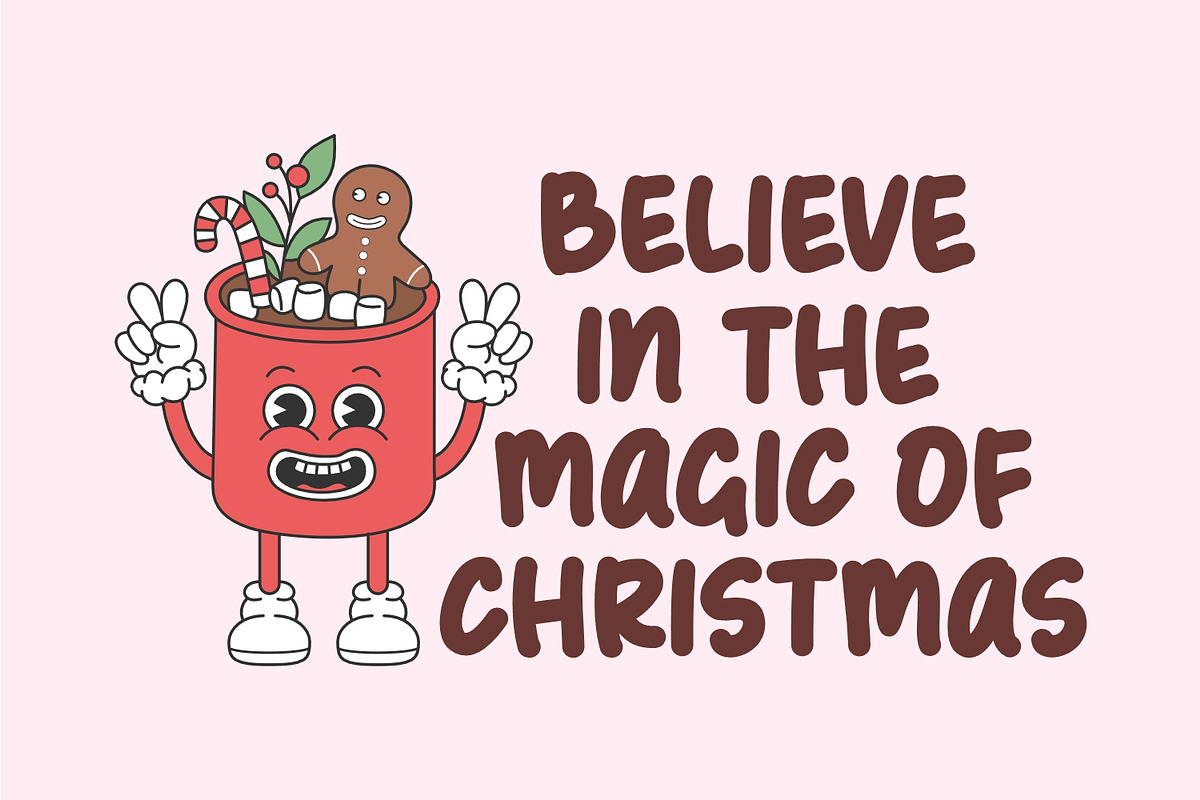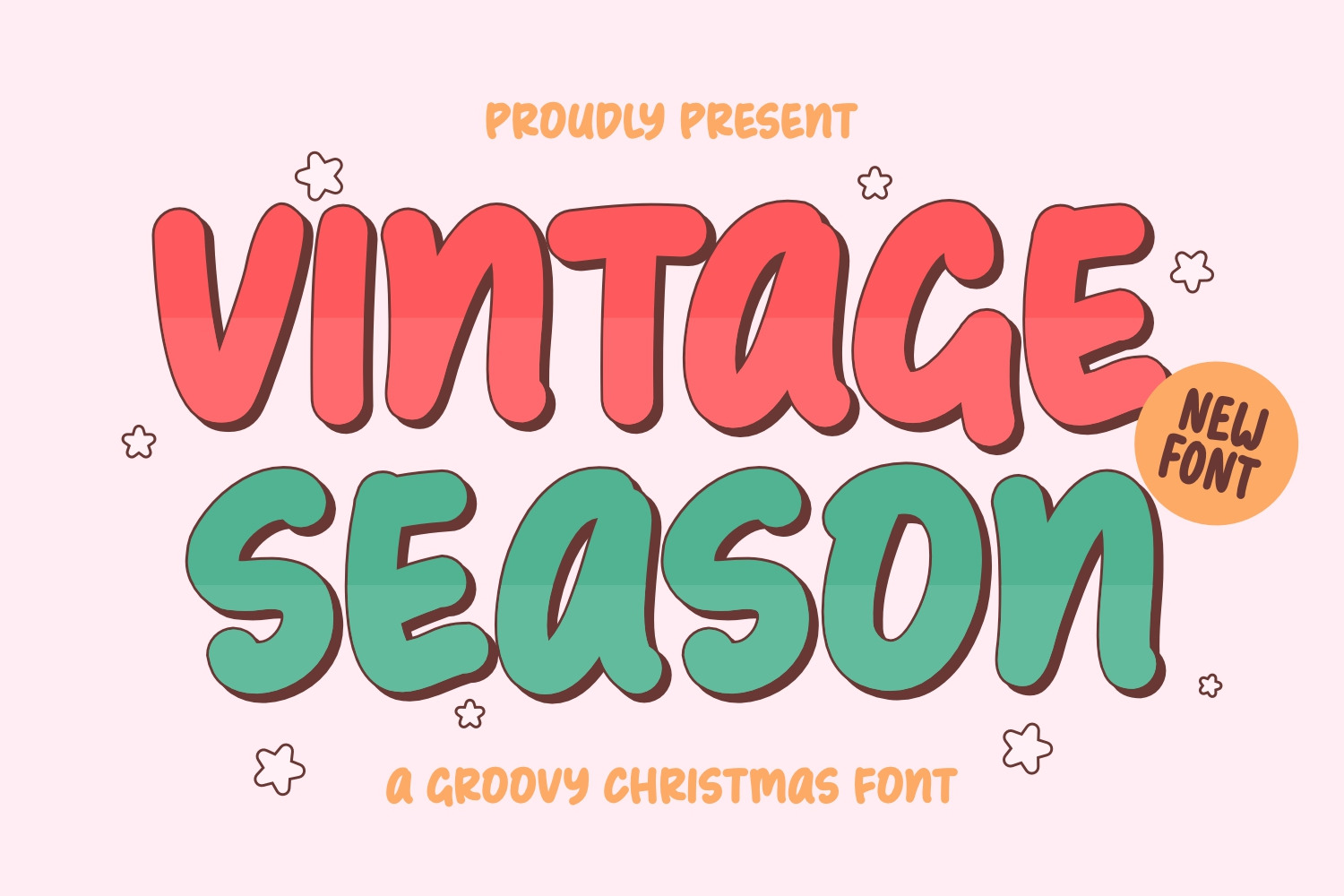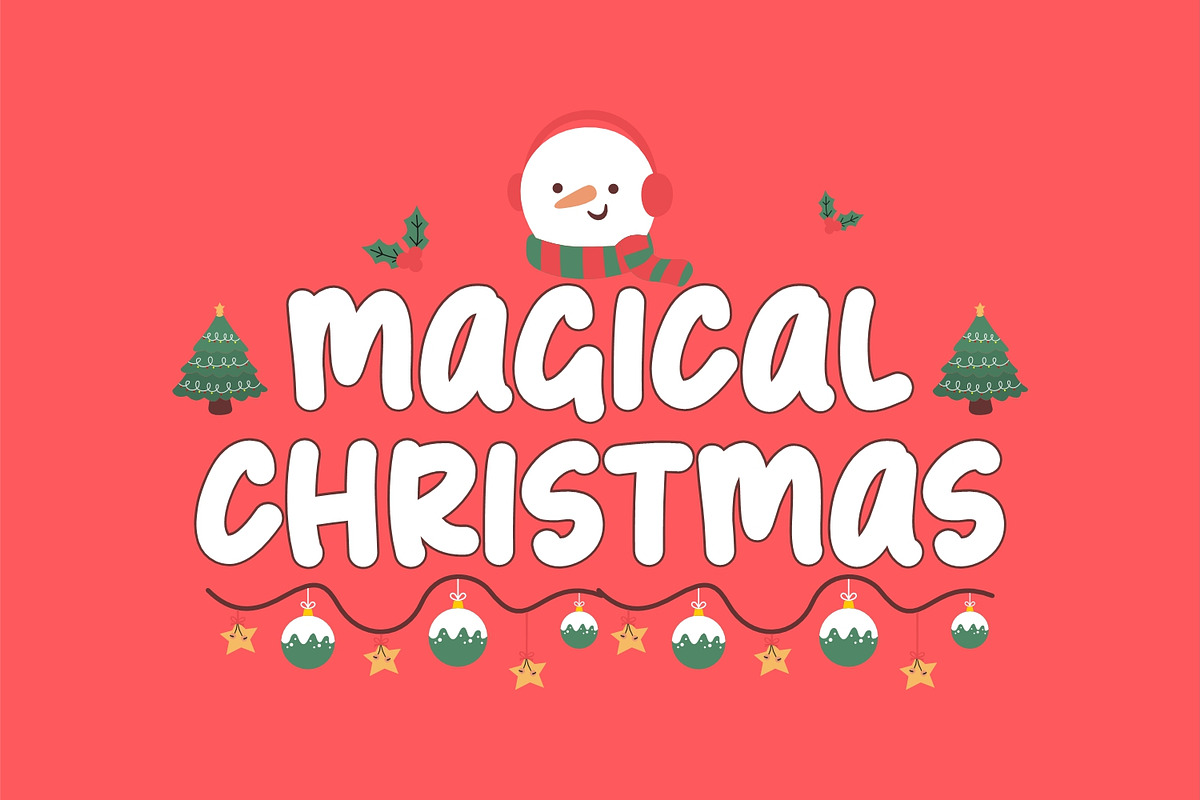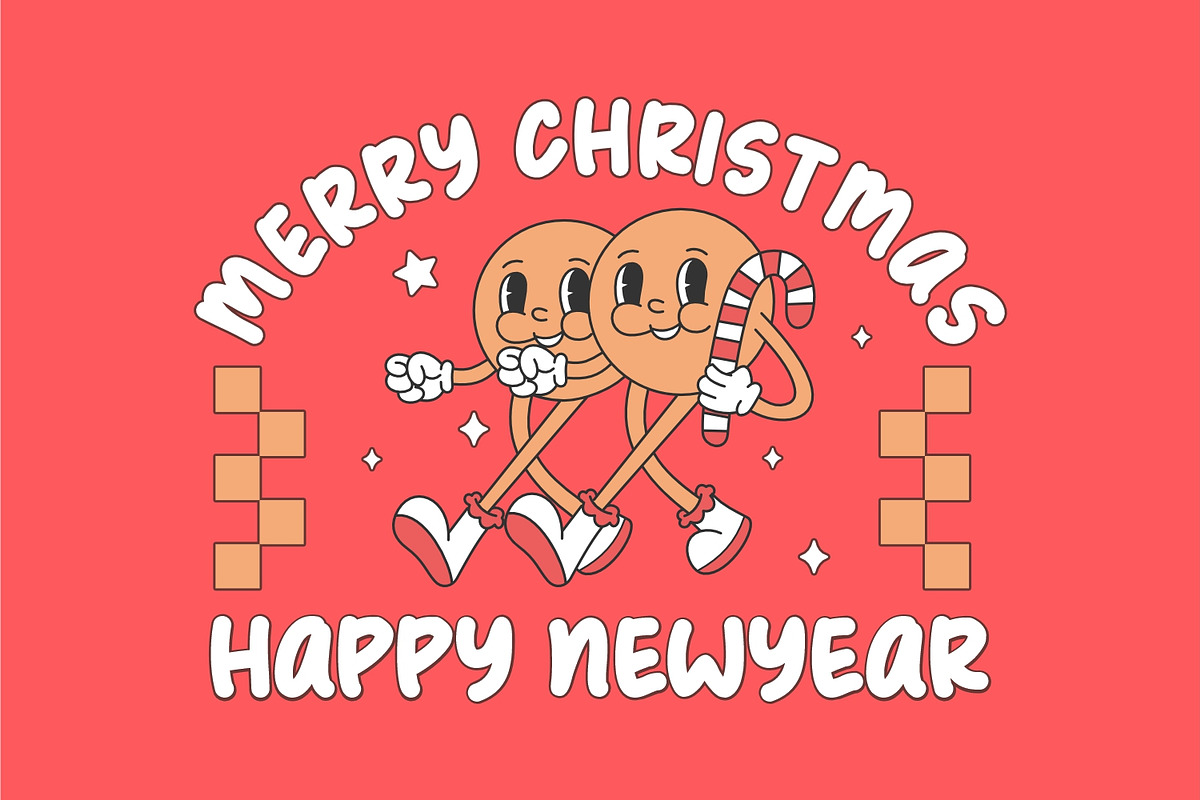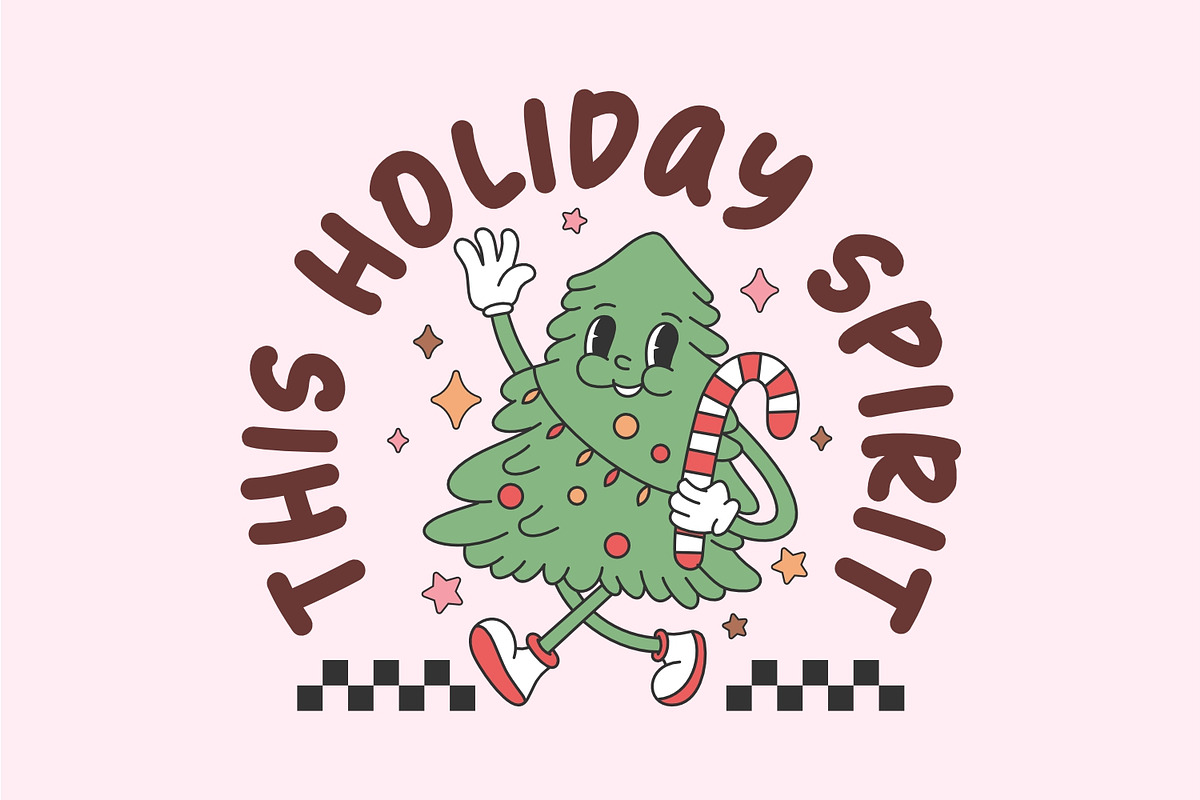
Vintage Season - Christmas Font
Vintage Season is a cool and groovy Christmas font that brings retro vibes to your holiday messages. With its funky style and festive flair, this font adds a touch of nostalgia to your Christmas designs. Perfect for holiday cards, invitations, and festive projects, Vintage Season captures the spirit of yesteryears with a fun and cheerful twist. Get into the groove of the season with this playful and retro-inspired font for a truly hip Christmas celebration!